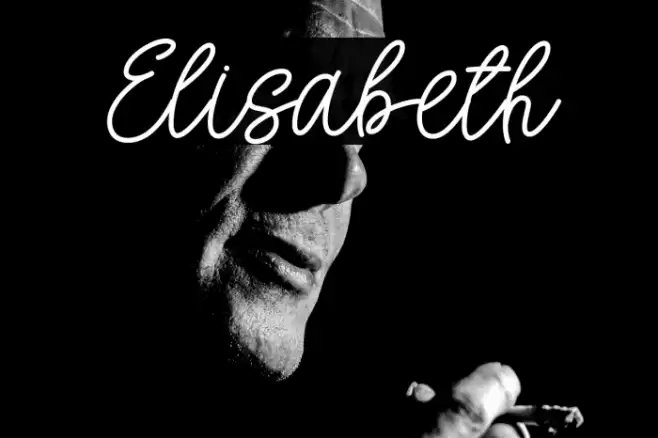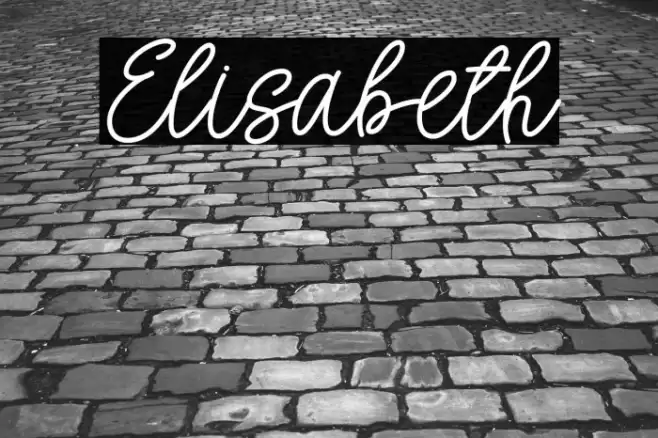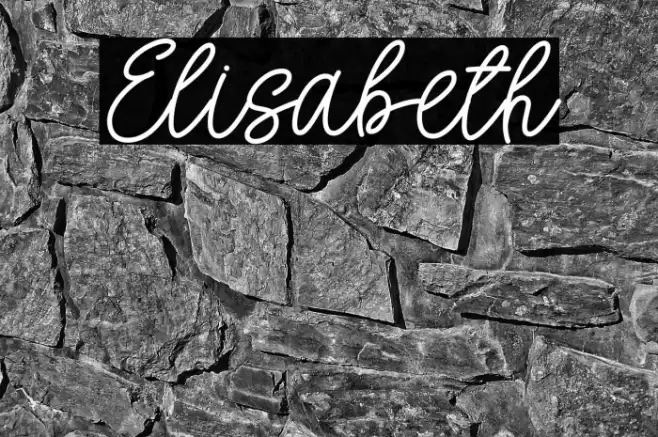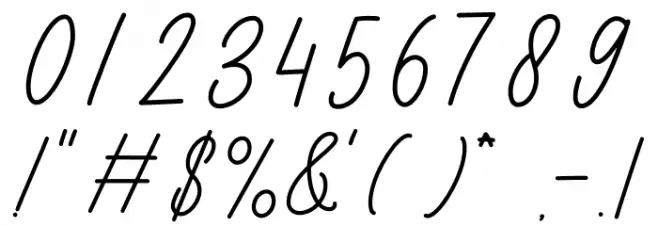
Elisabeth Font
Elisabeth Description
This font exudes a casual elegance with its handwritten style, featuring smooth, flowing lines that mimic natural handwriting. The uppercase letters are slightly more structured, while the lowercase letters maintain a consistent fluidity, enhancing readability. Numbers and special characters are designed to complement the alphabet, maintaining the same handwritten aesthetic. The overall appearance is both approachable and stylish, making it suitable for a variety of creative applications.
A casual, handwritten font with smooth, flowing lines from Uncategorized fonts.
- Proposed Projects: Ideal for personal branding, invitations, greeting cards, and creative projects that require a personal touch.
- Overall Style: Casual, Elegant
- Use Case: Logos, Invitations, Greeting Cards